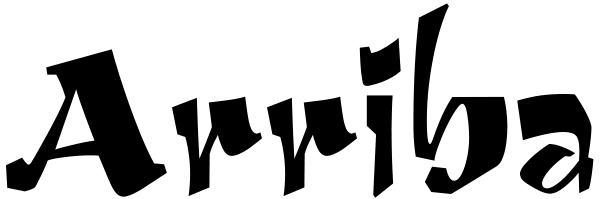
Arriba
The sky's the limit for this saucy, hot-blooded Latin American type design. It's angular, simulated broad brush style is bound to give a visual kick to all sorts of film, video, print and multi-media work. For maximum creative flexibility, a broad...